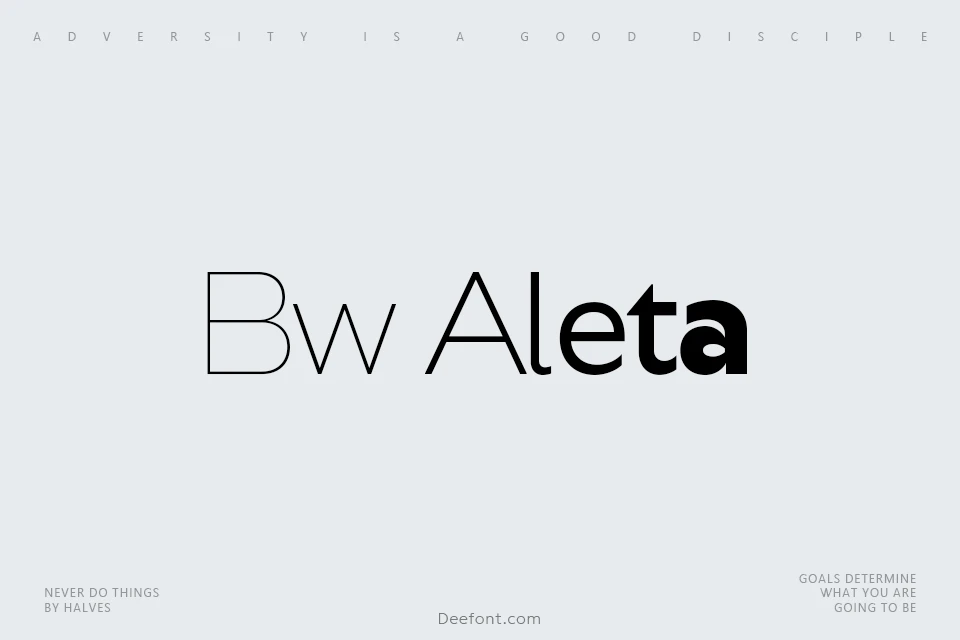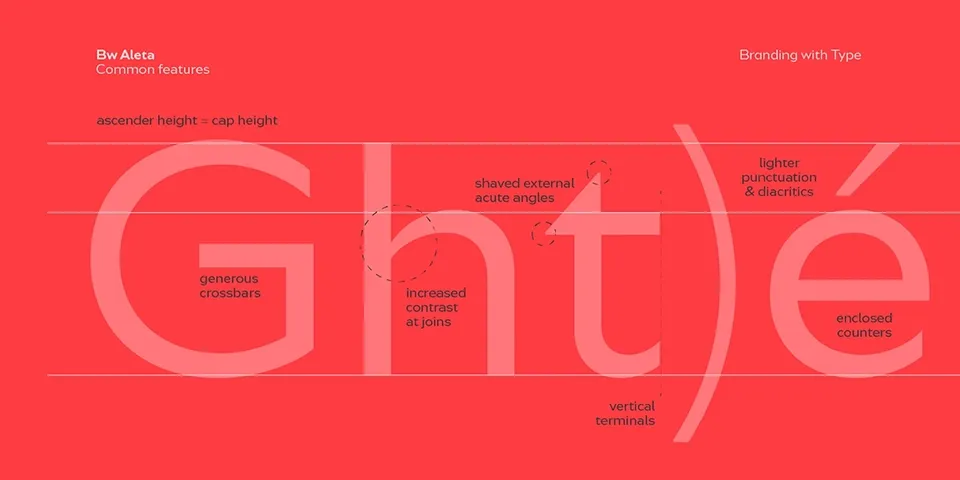
Bw Aleta Font Family
Bw Aleta Font Family is a sharp and geometric multi-purpose sans serif font family with humanist traits, designed for excellent readability and versatility. It features open character forms, a uniform distribution of white and black, and comes in 9 weights with matching oblique italics across two subfamilies, making it ideal for both display and text usage in modern branding and editorial design.